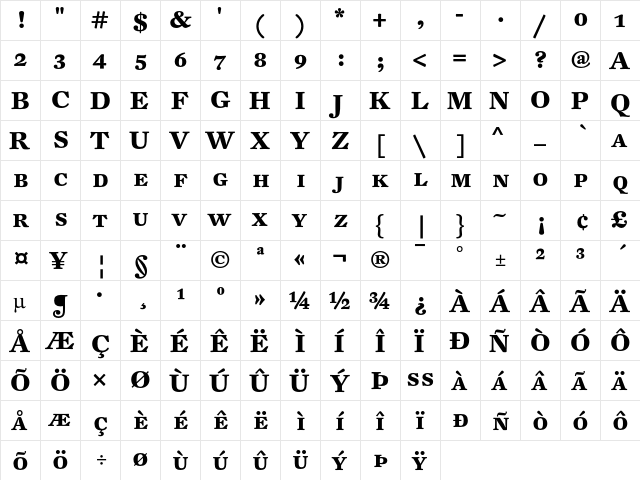
DTL Fleischmann T Caps Bold
Design Context for DTL Fleischmann Typeface
DTL Fleischmann is a composed and adaptable typeface that performs quietly and consistently across a wide range of design contexts. The heavy weight commands attention and anchors typographic hierarchies.